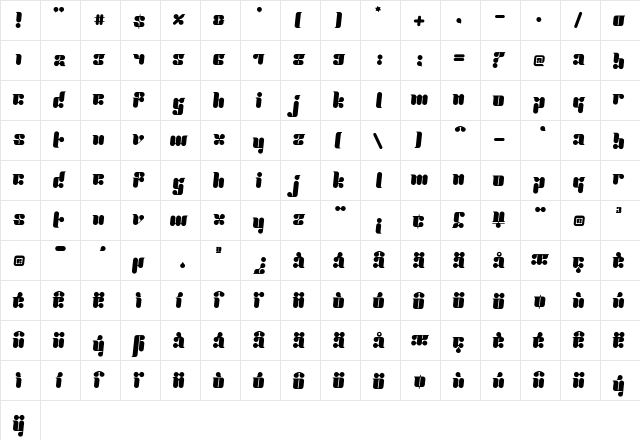
Proton Regular Font Preview
Proton Regular
Design Context for Proton Typeface
Proton is a composed and adaptable typeface that performs quietly and consistently across a wide range of design contexts.